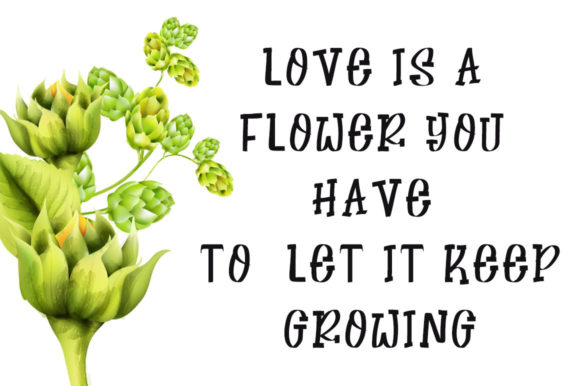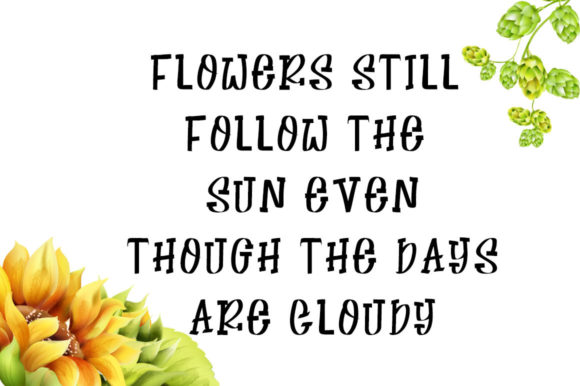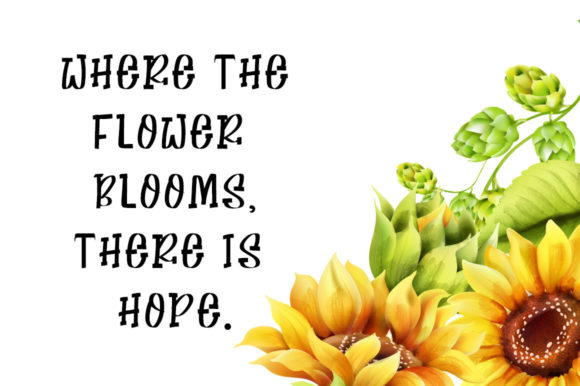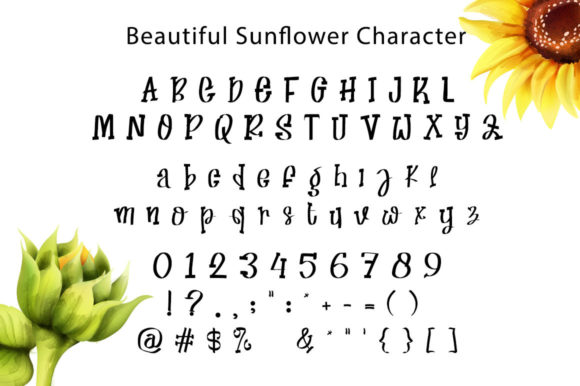
Introduction to Beautiful Sunflower Font
Remember that moment when you’re brainstorming ideas for your next design project and you stumble upon the perfect font? It’s like a spark of creativity ignites, and suddenly, everything falls into place. For many designers, that moment comes when they discover the Beautiful Sunflower Font. This fun and friendly handwritten font is a game-changer, offering a unique charm that can elevate any design from ordinary to extraordinary.
Whether you’re working on a logo, heading, or signage, Beautiful Sunflower Font is the perfect design resource to add a personal touch. Its high-quality design makes it perfect for transparent backgrounds, and the best part? It’s free to download, making it an accessible option for designers of all levels. With its versatility and unique style, it’s no wonder Beautiful Sunflower Font is a favorite among designers.
Key Features of Beautiful Sunflower Font
- Unique, hand-drawn design with a touch of elegance and sophistication
- High-quality design suitable for various design projects, including logos, branding materials, and digital graphics
Honest Review: Beautiful Sunflower Font
I recently stumbled upon the Beautiful Sunflower Font while searching for a design resource for a creative project. This font is a true gem, offering a high-quality, unique design that’s perfect for adding a touch of elegance to your work.
One of the standout features of this font is its versatility. It works beautifully with a transparent background, allowing you to easily layer it with other design elements. ✨ The font is also highly customizable, making it easy to adjust the size, color, and style to suit your needs.
Here are some of the key benefits of the Beautiful Sunflower Font:
- High-quality design with a unique, elegant style
- Works well with a transparent background
- Customizable size, color, and style options
However, I did encounter a few limitations while using this font. ⚠️ The font is only available in a limited number of languages, which may be a drawback for some designers. Additionally, the font may not be suitable for very small text sizes, as it can become difficult to read.
Overall, I’m thoroughly impressed with the Beautiful Sunflower Font. Its unique design, high-quality features, and customization options make it an excellent addition to any design resource library. Whether you’re working on a creative project or simply looking for a new font to add to your collection, I highly recommend giving this font a try.
Tips for Getting the Most Out of Beautiful Sunflower Font
Use the Beautiful Sunflower Font in conjunction with other design elements to create a cohesive and visually appealing design. Experiment with different font sizes, colors, and styles to add depth and interest to your design.
Common Use Cases for Beautiful Sunflower Font
The Beautiful Sunflower Font is perfect for a variety of creative projects, including wedding invitations, birthday cards, and social media graphics. Its high-quality design and transparent background make it an ideal choice for designers of all skill levels.